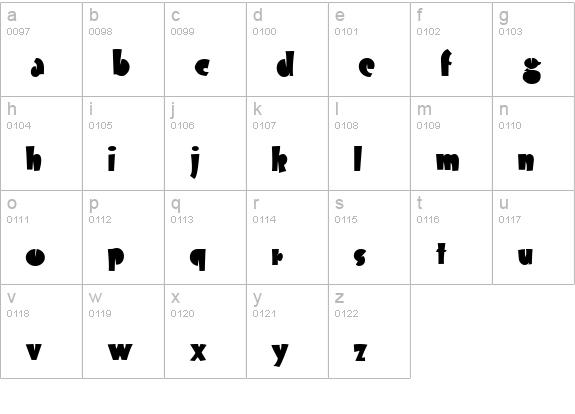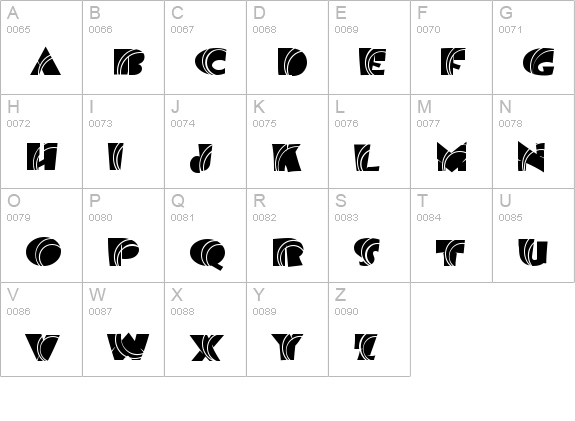
Milky Way Two Font Details
Milky Way Two font is a stunning display typeface that exudes elegance and modernity. With its sleek lines and sophisticated curves, this font is perfect for creating eye-catching designs that demand attention. Whether you're designing logos, posters, or branding materials, Milky Way Two font will add a touch of refinement to your projects. What makes Milky Way Two font even more appealing is that it is completely free to download at FontsMarket.com. Yes, you heard that right - this exquisite font is available for free, allowing you to elevate your designs without breaking the bank. So why wait? Head over to FontsMarket.com now and get your hands on Milky Way Two font to take your designs to the next level.